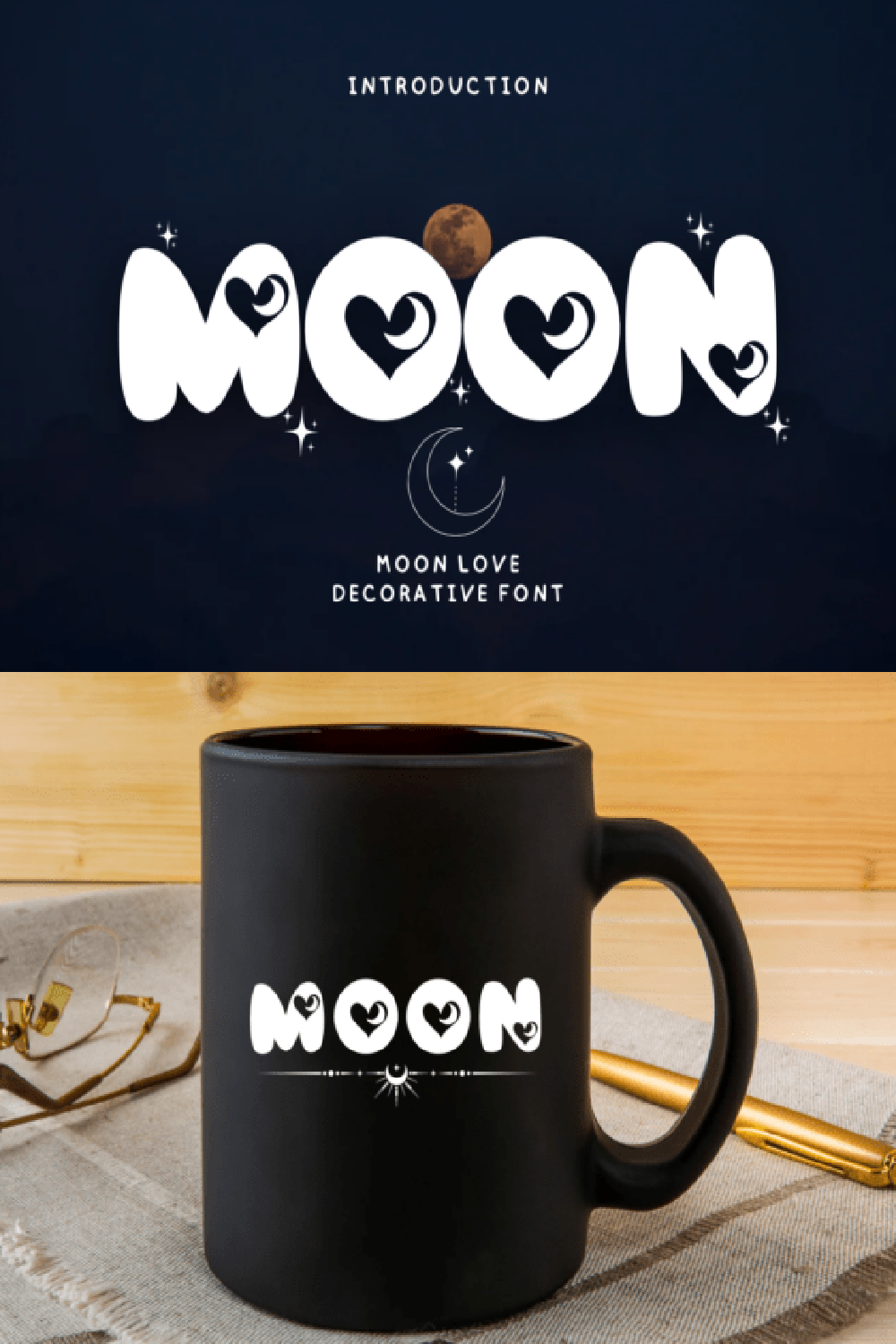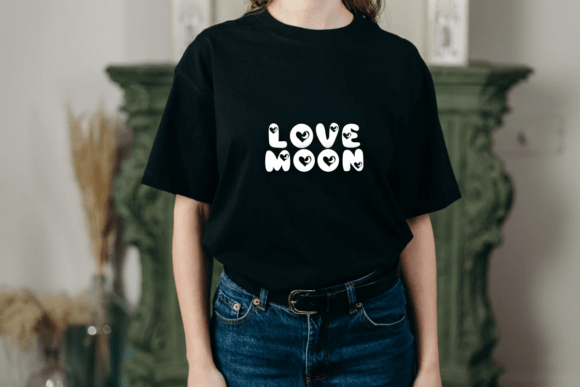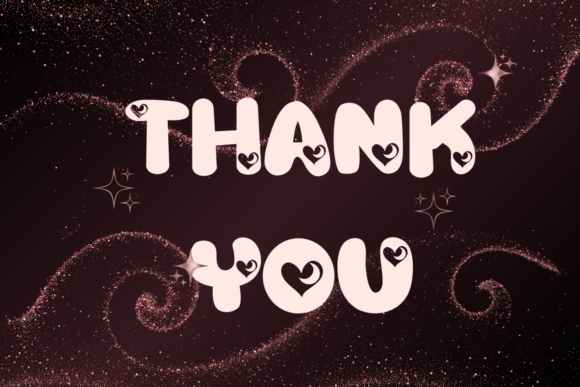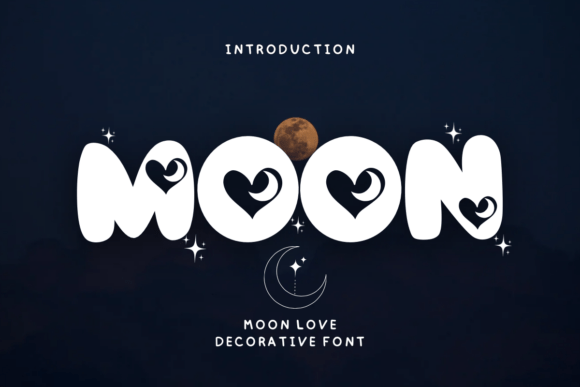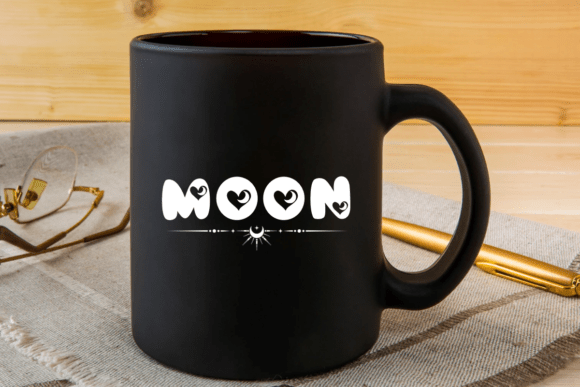
Moon Love Font: A Cute & Playful Decorative Font for Cricut & DIY
About the Moon Love Font
The wait is over! The incredible Moon Love Font is now available for your design toolkit. Introducing Moon Love, a strikingly versatile decorative font that adds a touch of elegance to your creativity. Designed to enhance everyday tasks like note-taking or journaling, this typeface transforms ordinary activities into works of art. It’s perfect for adding finesse to greeting cards, making the simplest sentiments extraordinary. Yet, this font’s flexibility goes well beyond personal uses; it’s also ideal for adding visual impact to your other projects. Let Moon Love invigorate your banner designs, make your mug and shirt designs pop, breathe life into your cards and stationery, or command attention on social media posts. Moon Love isn’t just a font – it’s the fine touch your designs need!